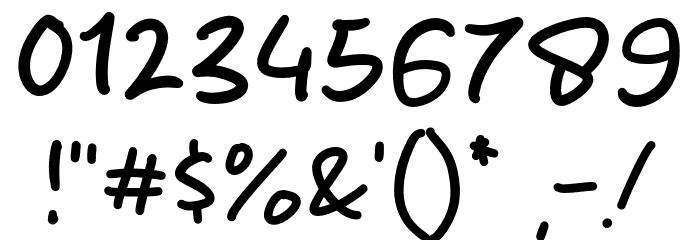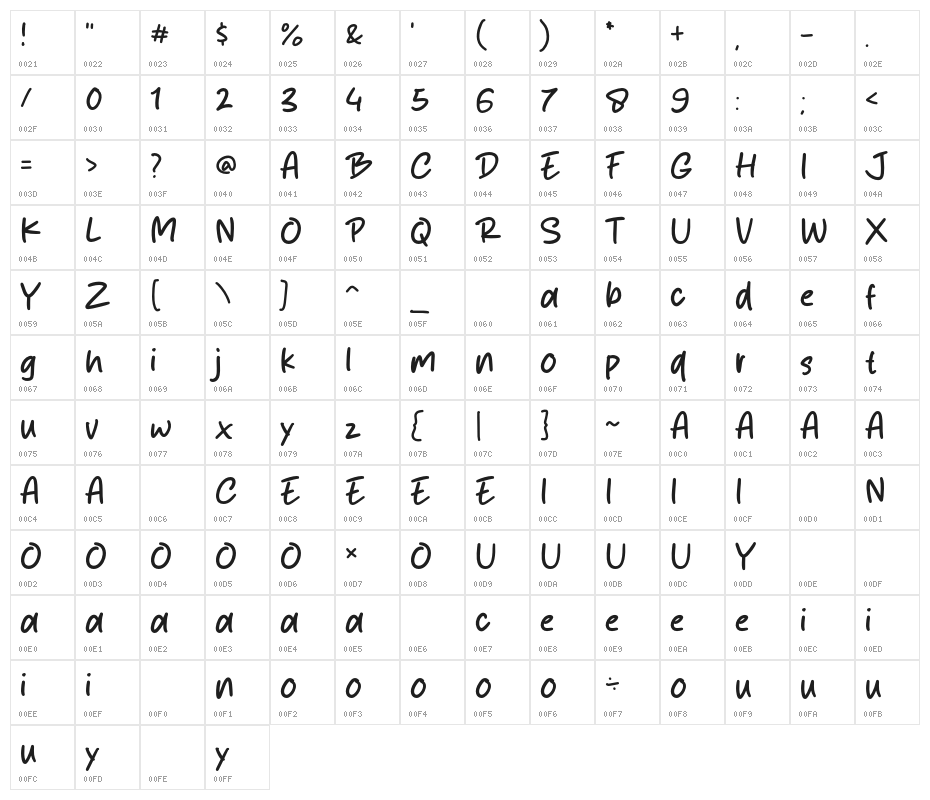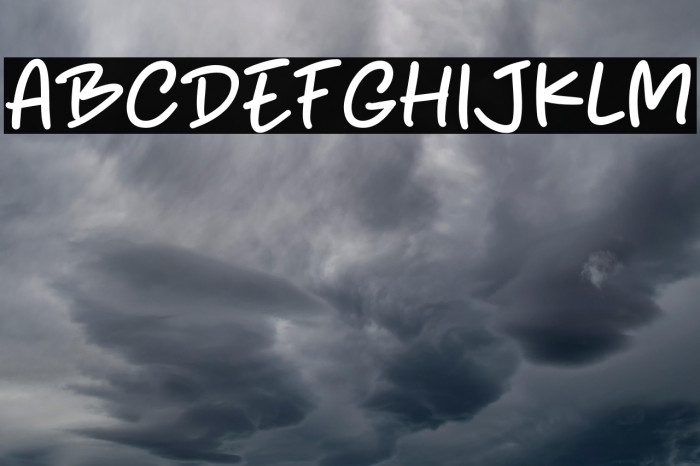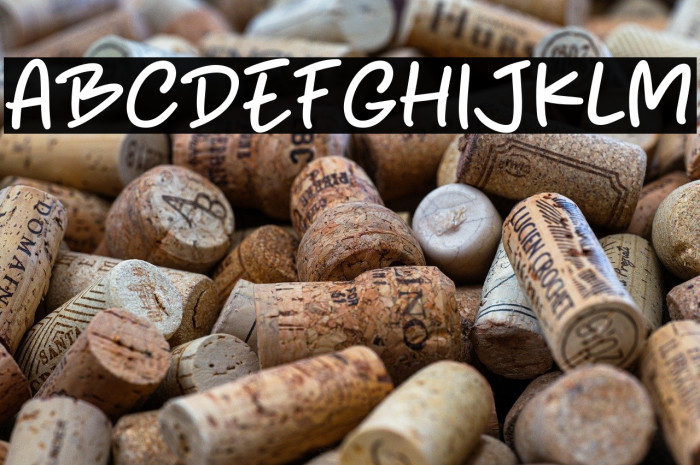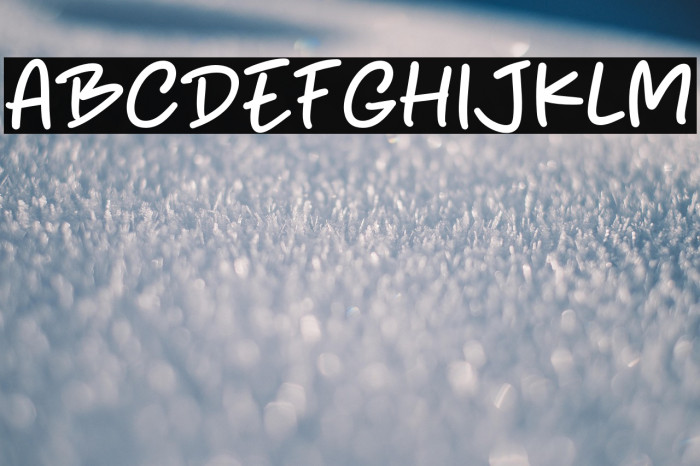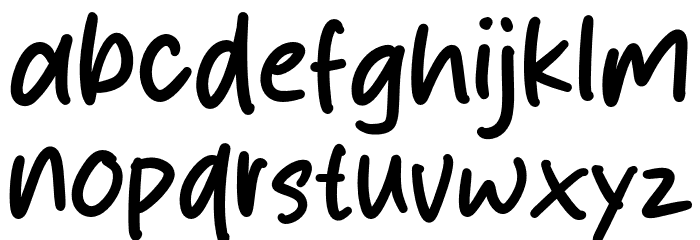
Salad Chilli Font
Salad Chilli Description
This font exudes a playful and casual handwritten style, characterized by its smooth, flowing curves and slightly irregular strokes. The letters are bold and rounded, giving a friendly and approachable feel. The uppercase and lowercase characters maintain a consistent style, with a slight slant that adds to the informal aesthetic. The numerals and special characters are crafted with the same attention to detail, ensuring a cohesive look across all glyphs. This font is perfect for projects that require a personal touch, such as invitations, greeting cards, or branding materials that aim to convey warmth and friendliness.